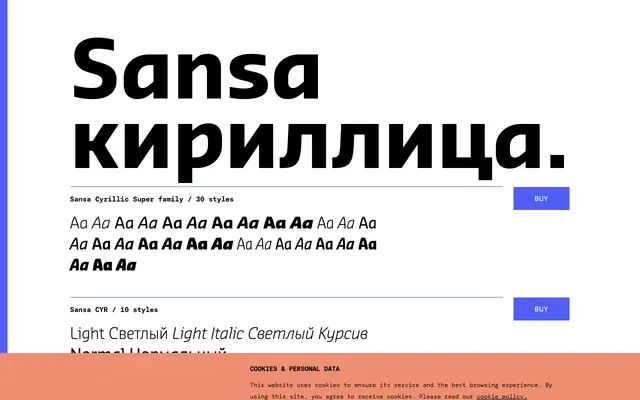
Sansa Cyrillic
A 30-style Cyrillic sans-serif family spanning three widths from regular to condensed, each in five weights with matching italics.
The family is structured across three sub-families — Sansa CYR, Sansa SmCon CYR and Sansa Con CYR — giving ten styles per width for a total of 30. Each sub-family runs from Light to Black with paired italics throughout. OpenType features include small capitals, oldstyle and tabular figures, fractions, case-sensitive forms and stylistic alternates, making it well-equipped for demanding editorial and UI work in Cyrillic and Latin.
Sansa Cyrillic is a sans-serif with humanist proportions extended to Cyrillic script, offered across regular, semi-condensed and condensed width variants with a full italic range.